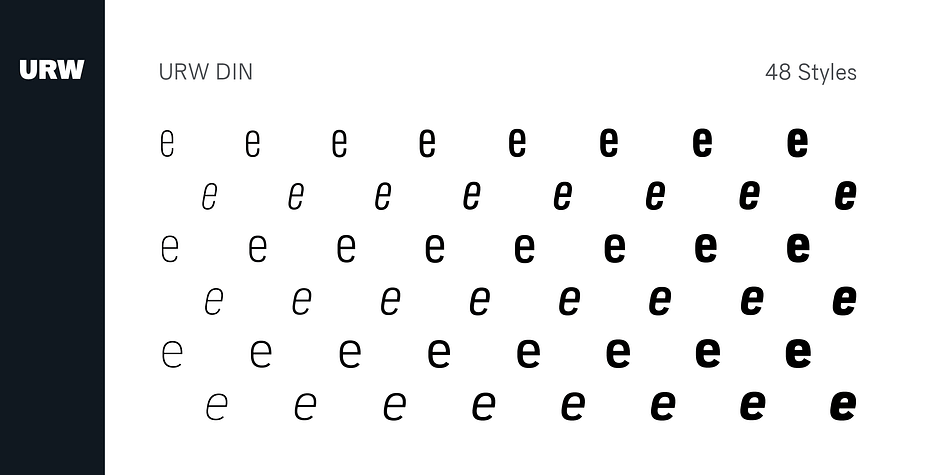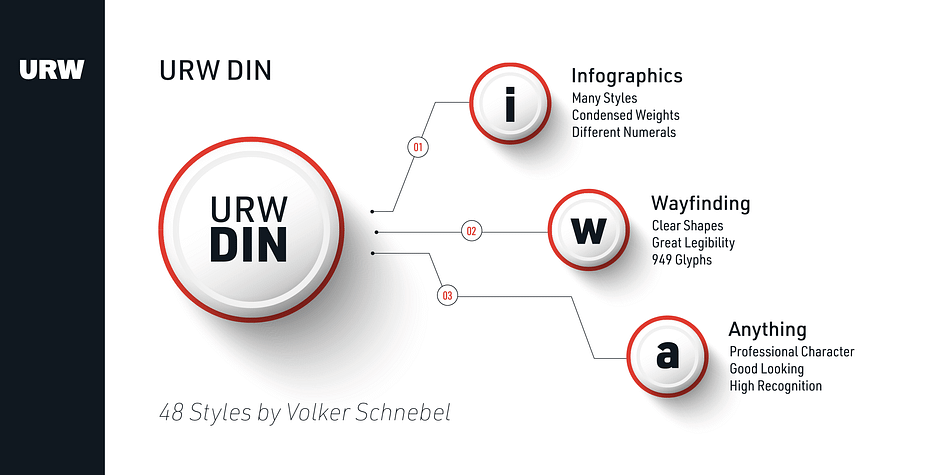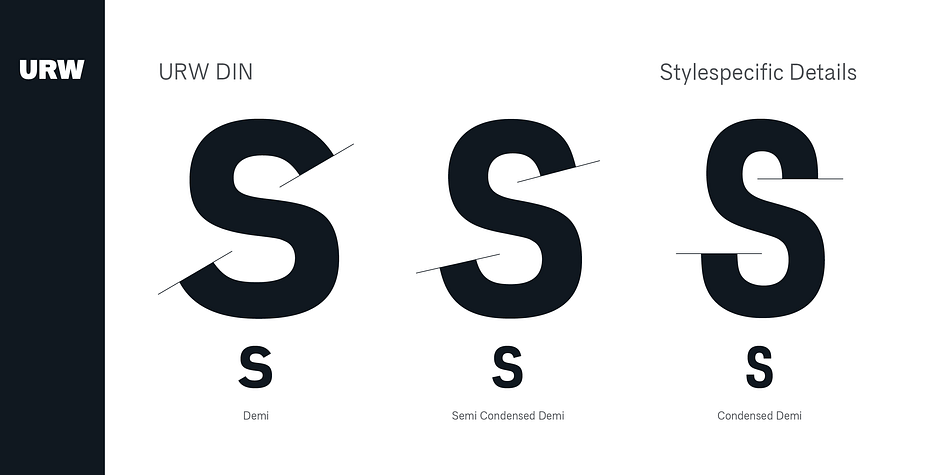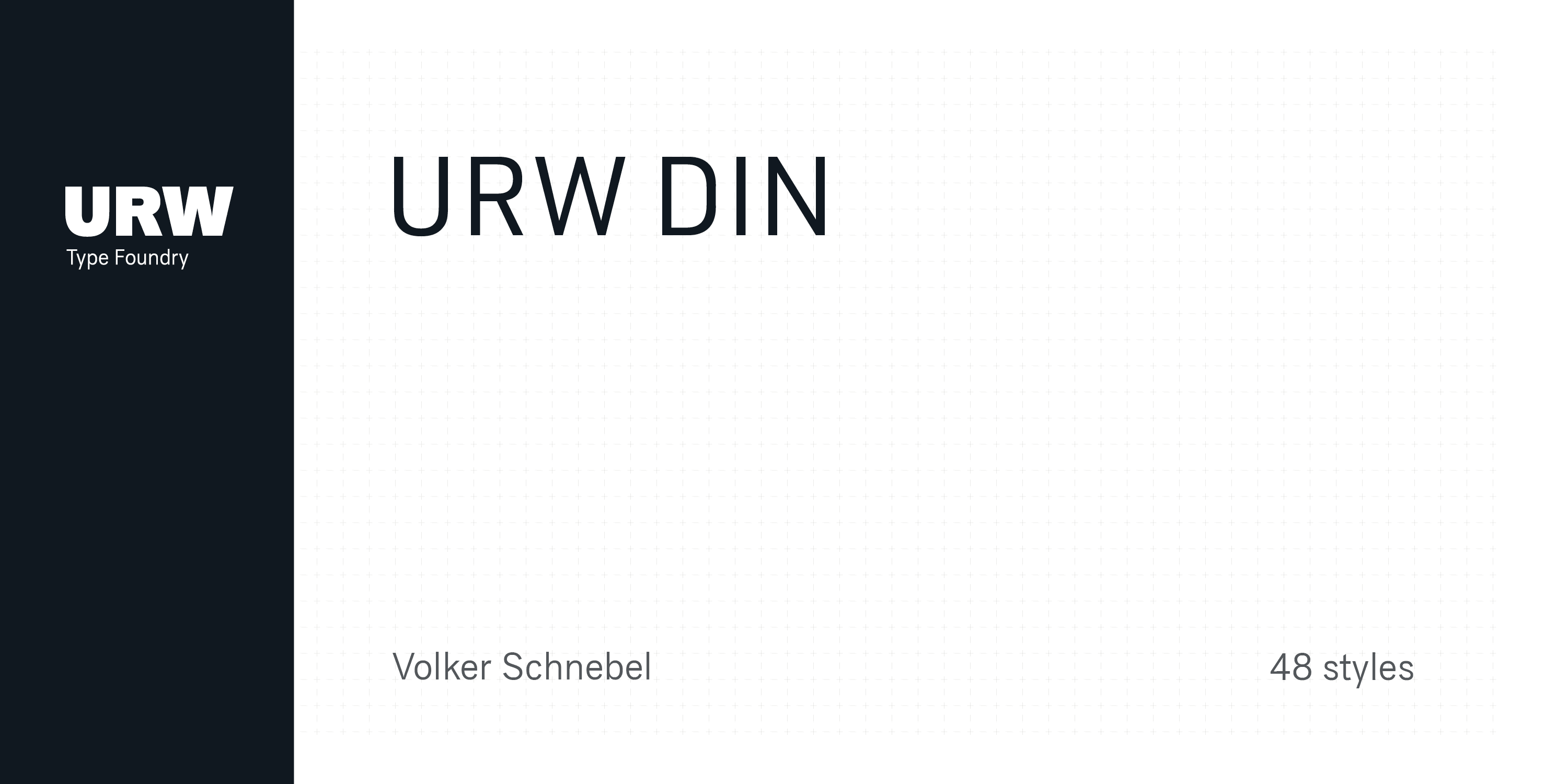
Designed by Volker Schnebel, URW DIN is a sans serif font family. This typeface has forty-eight styles and was published by URW Type Foundry.
The digital outline fonts, DIN 1451 Fette Engschrift and Fette Mittelschrift were created by URW in 1984 and are the basis for all DIN font families. Both typefaces were designed for the URW SIGNUS system and were mainly used for the production of traffic signs. They have since become so popular in other areas that we have developed a complete DIN font family with 48 styles in OpenType Pro: URW DIN. It features a semi-condensed, which is unique among the DIN fonts, so it has a broad spectrum of typographic uses. Its large x-height makes it perfect for use in e-publishing (web, apps, e-Books etc) and its adjusted stroke width between the regular and bold weights enhances its quality and distinguishability in print.
Foundry | URW Type Foundry |
Designer | Volker Schnebel |